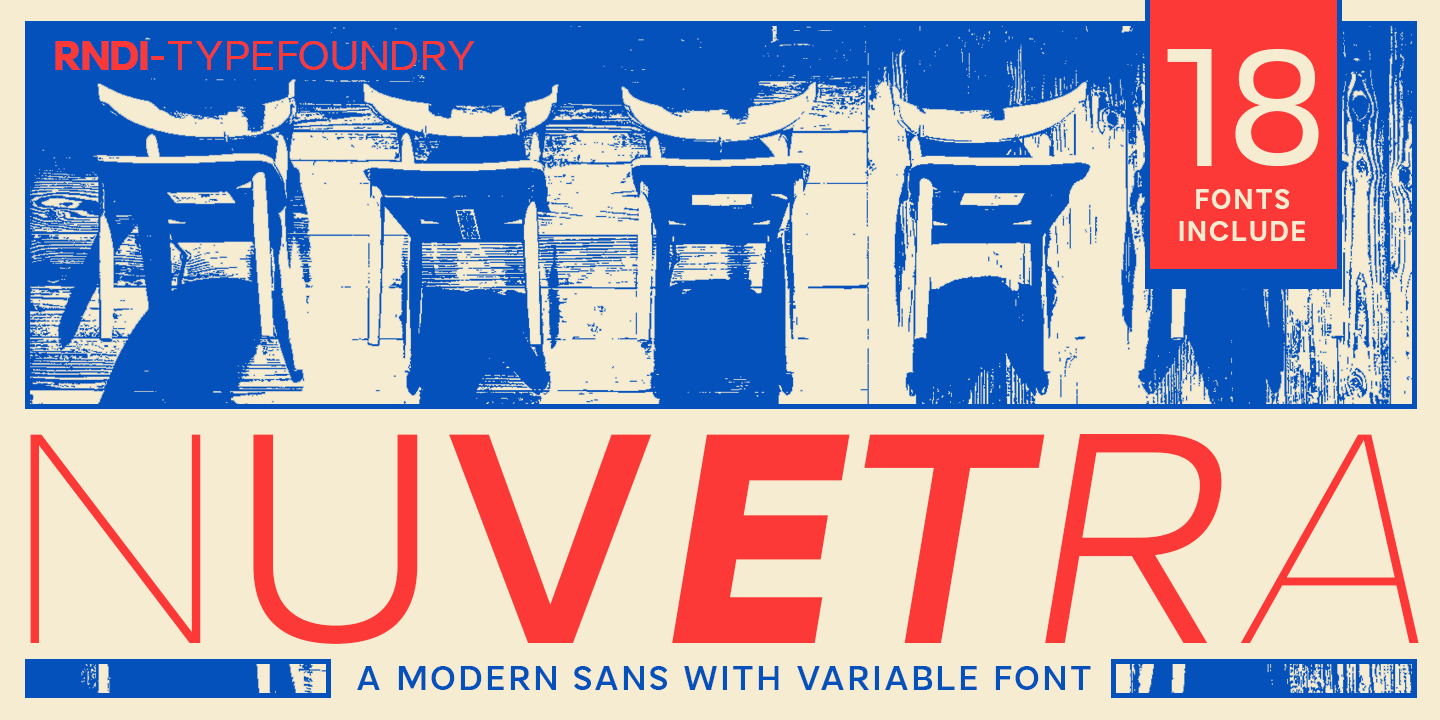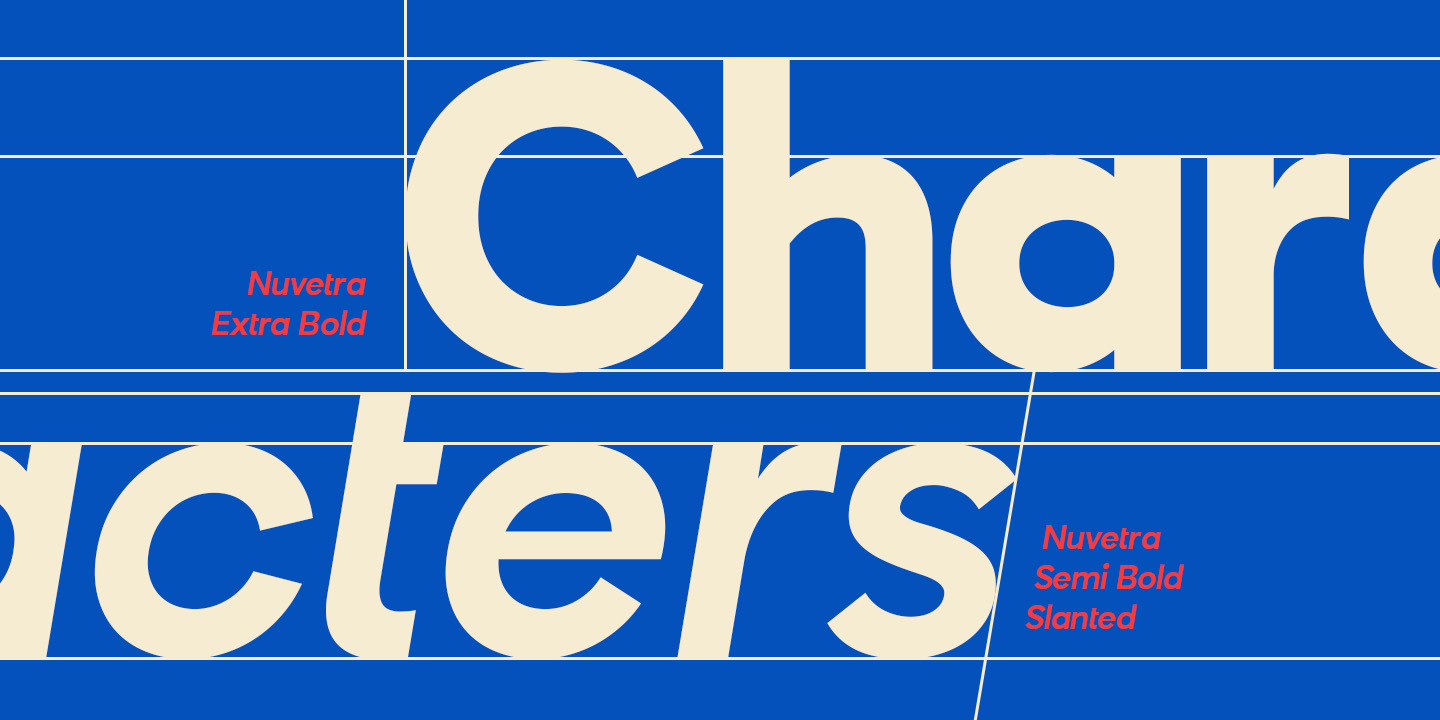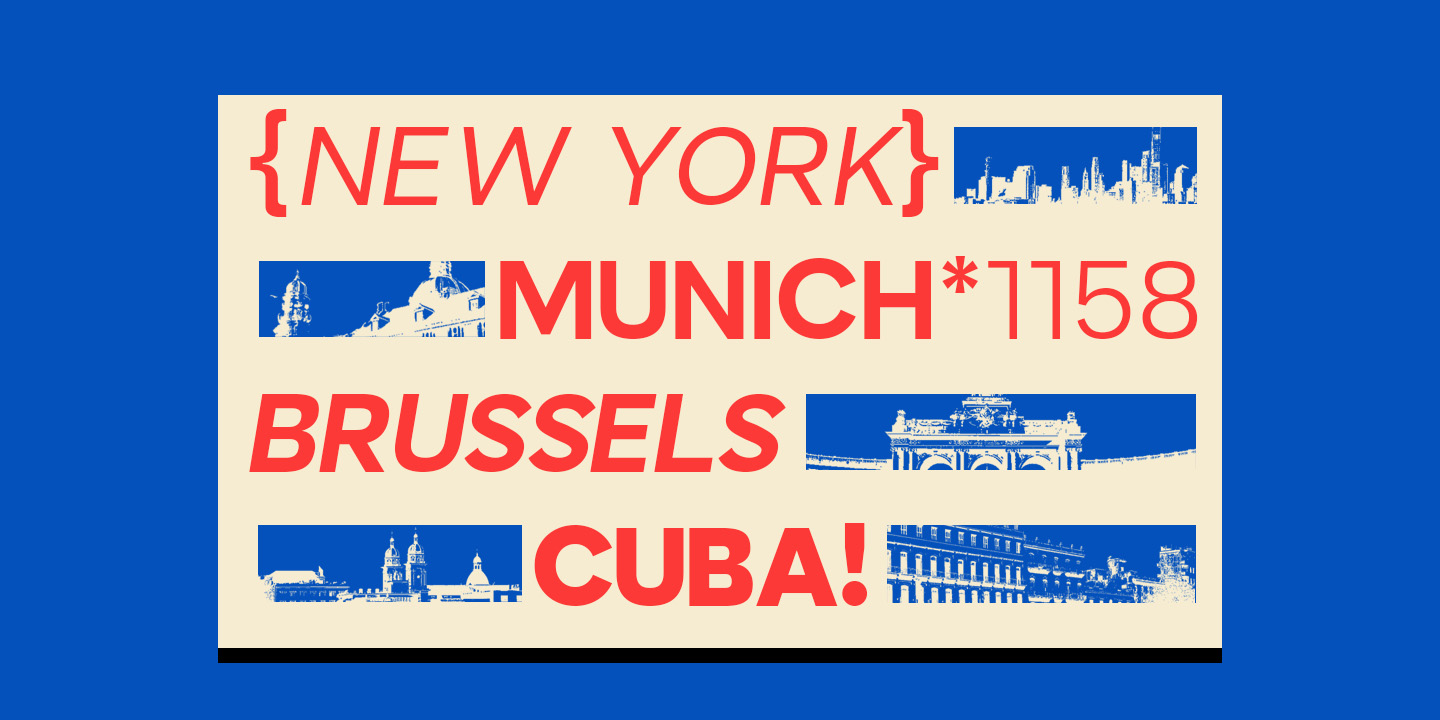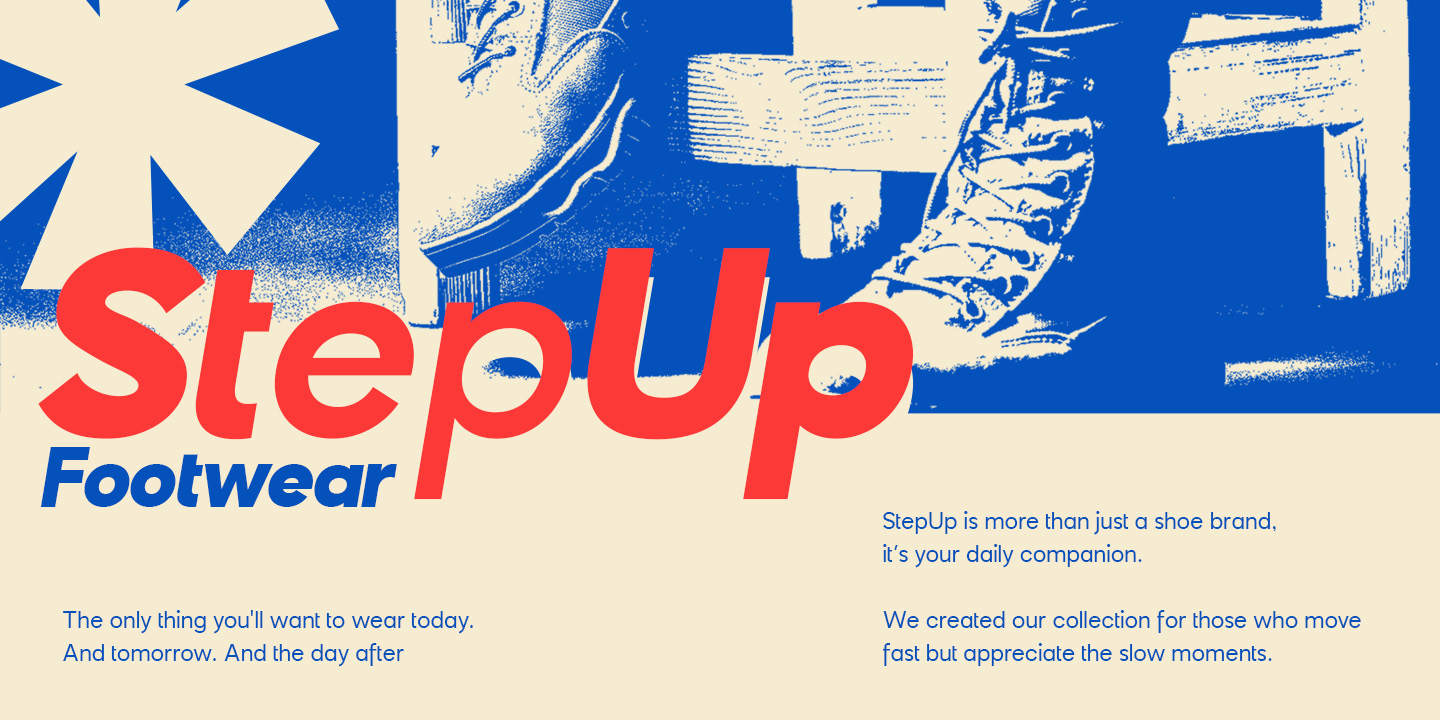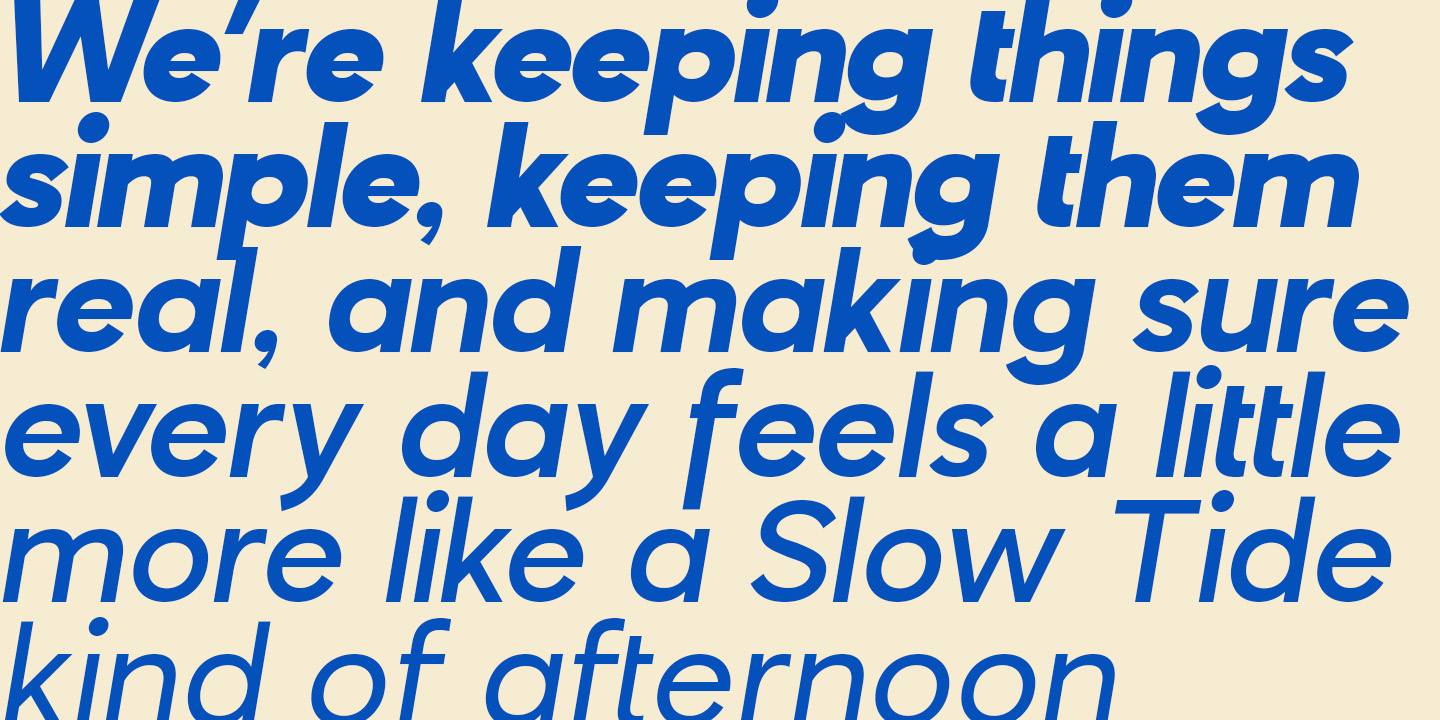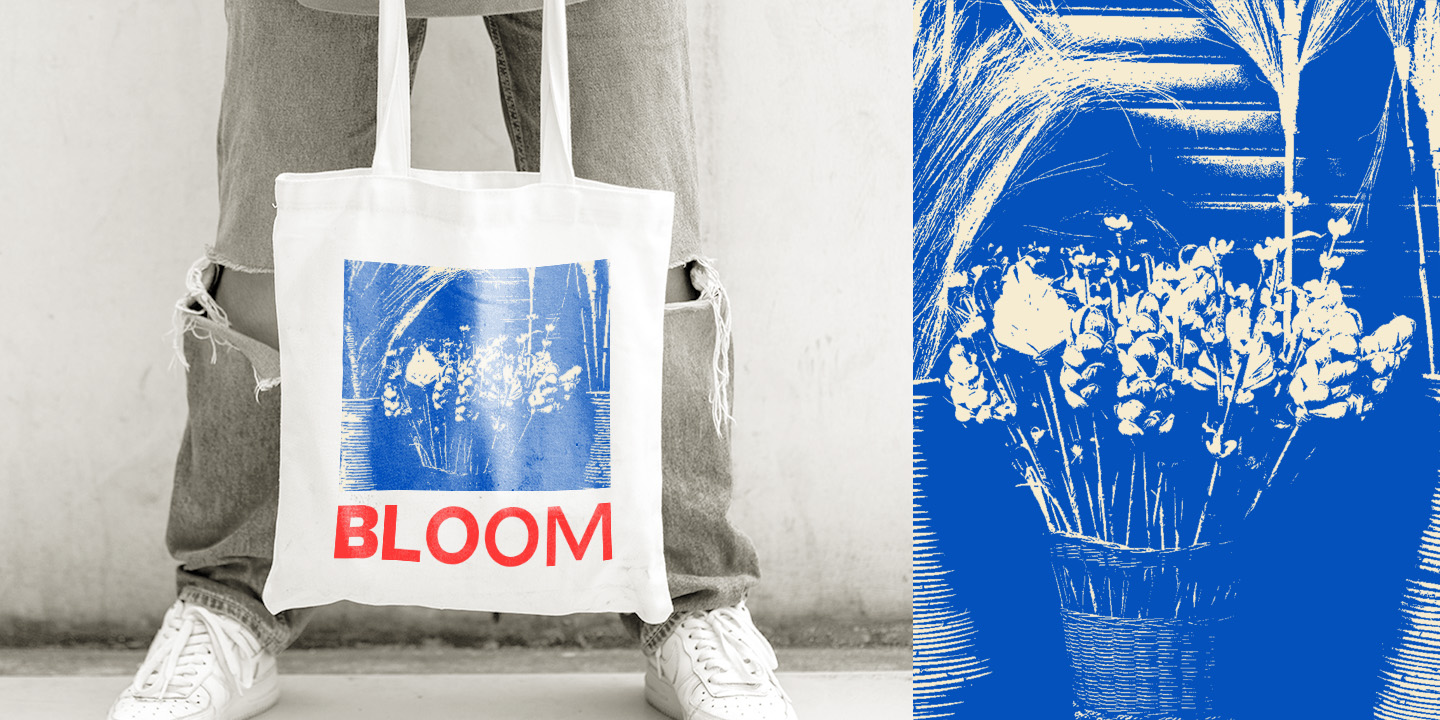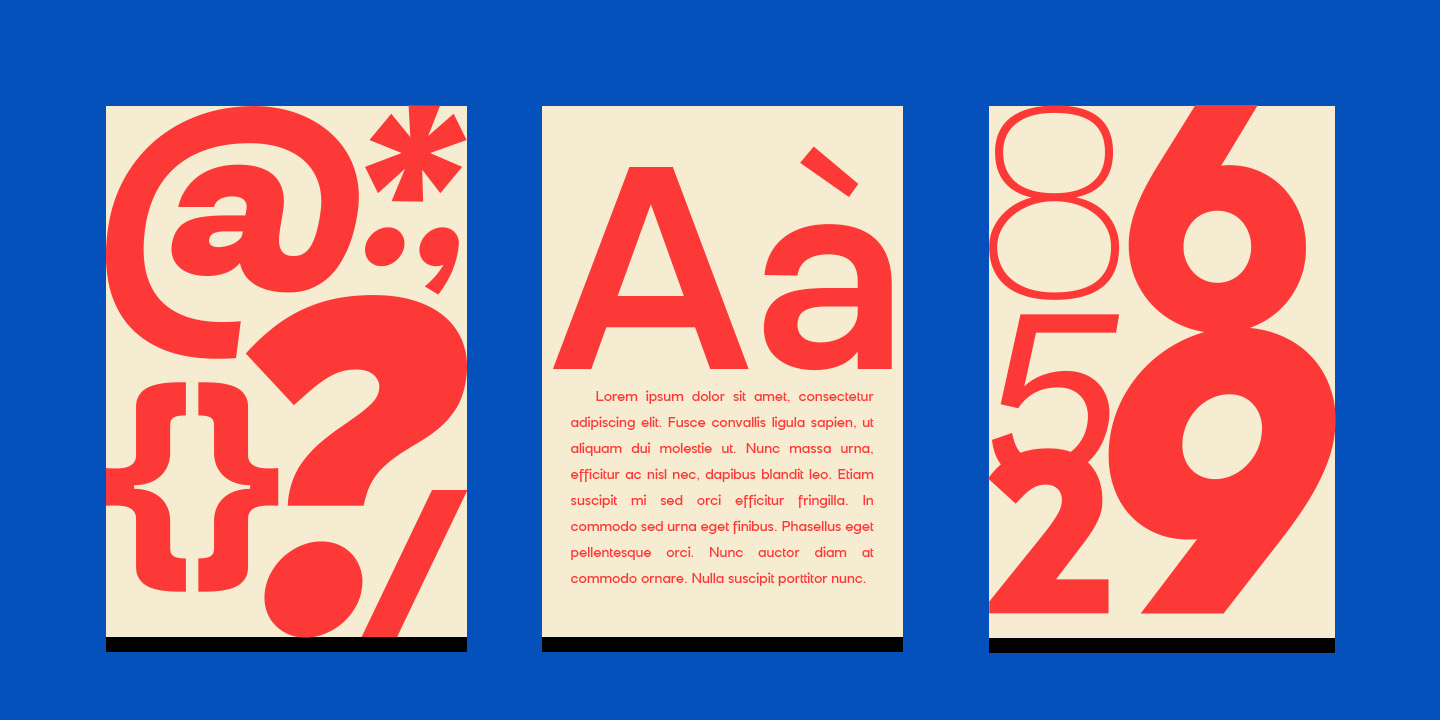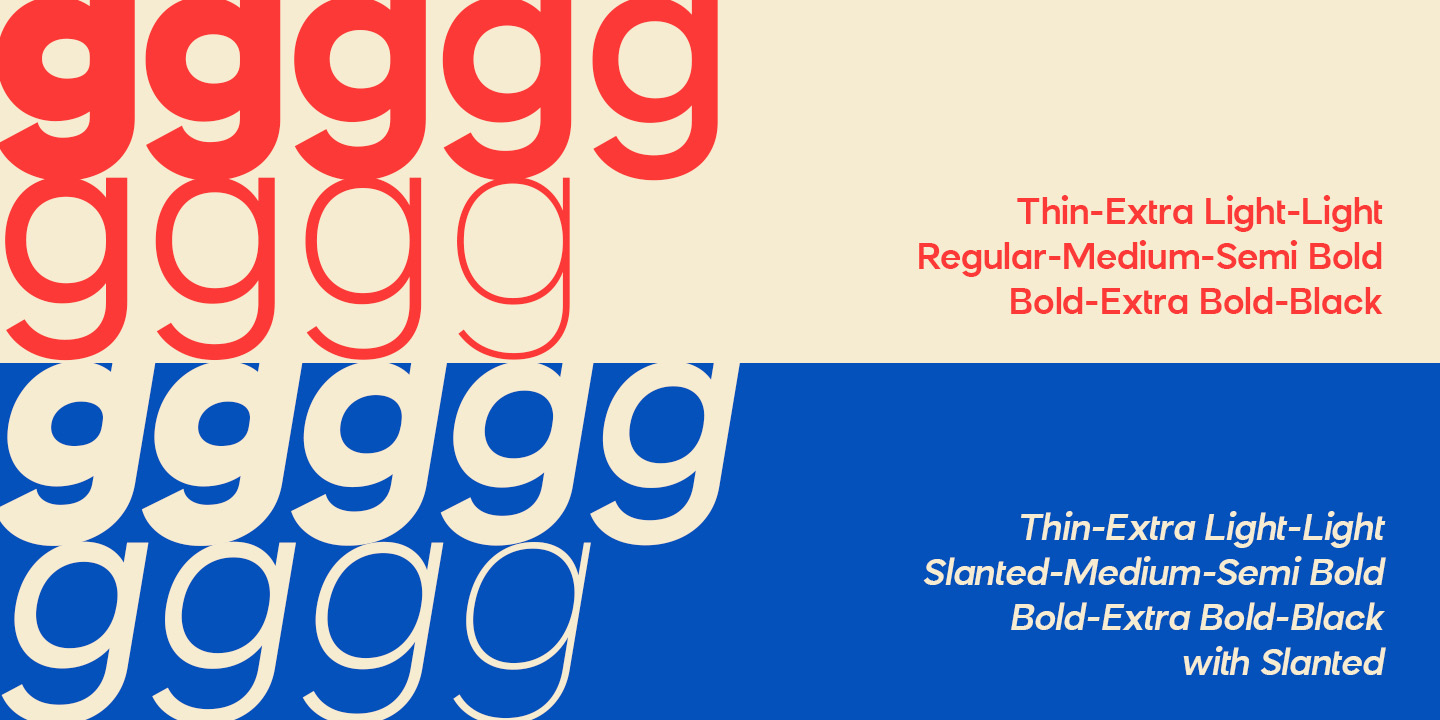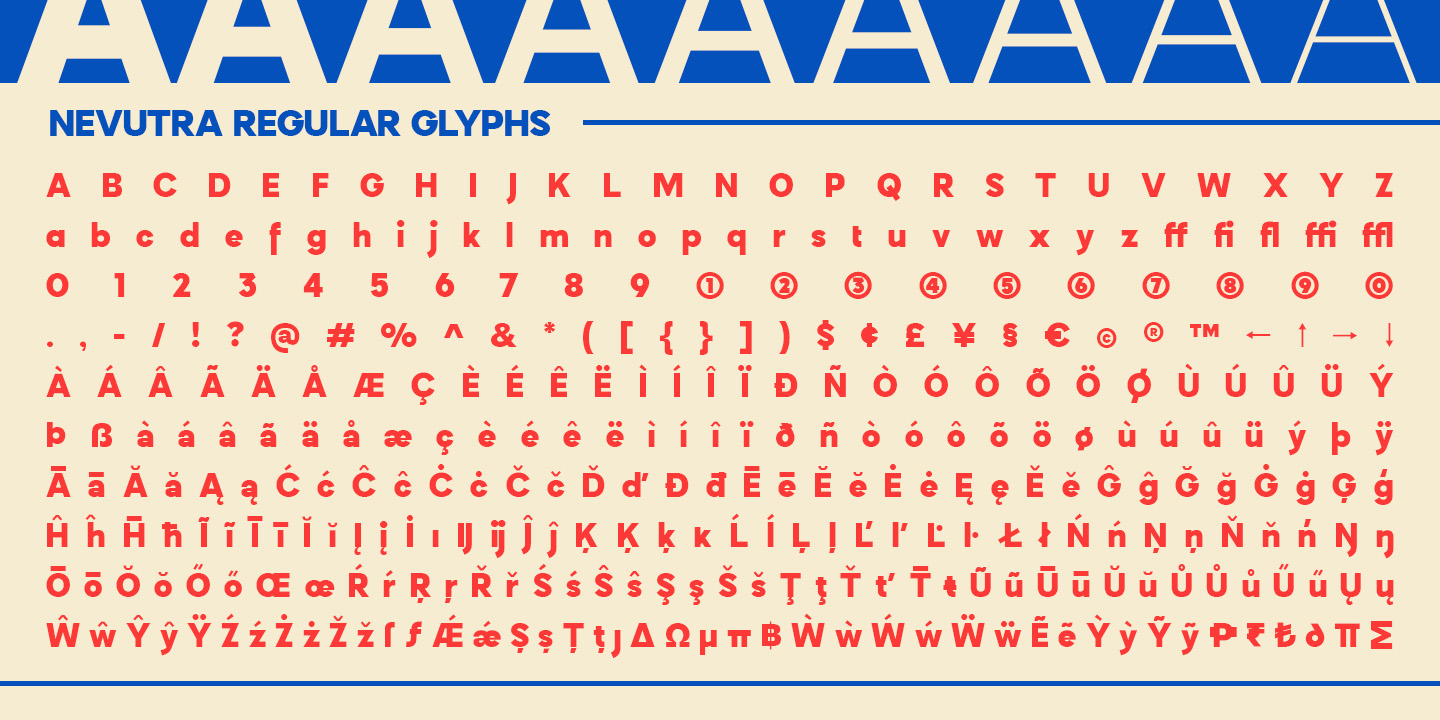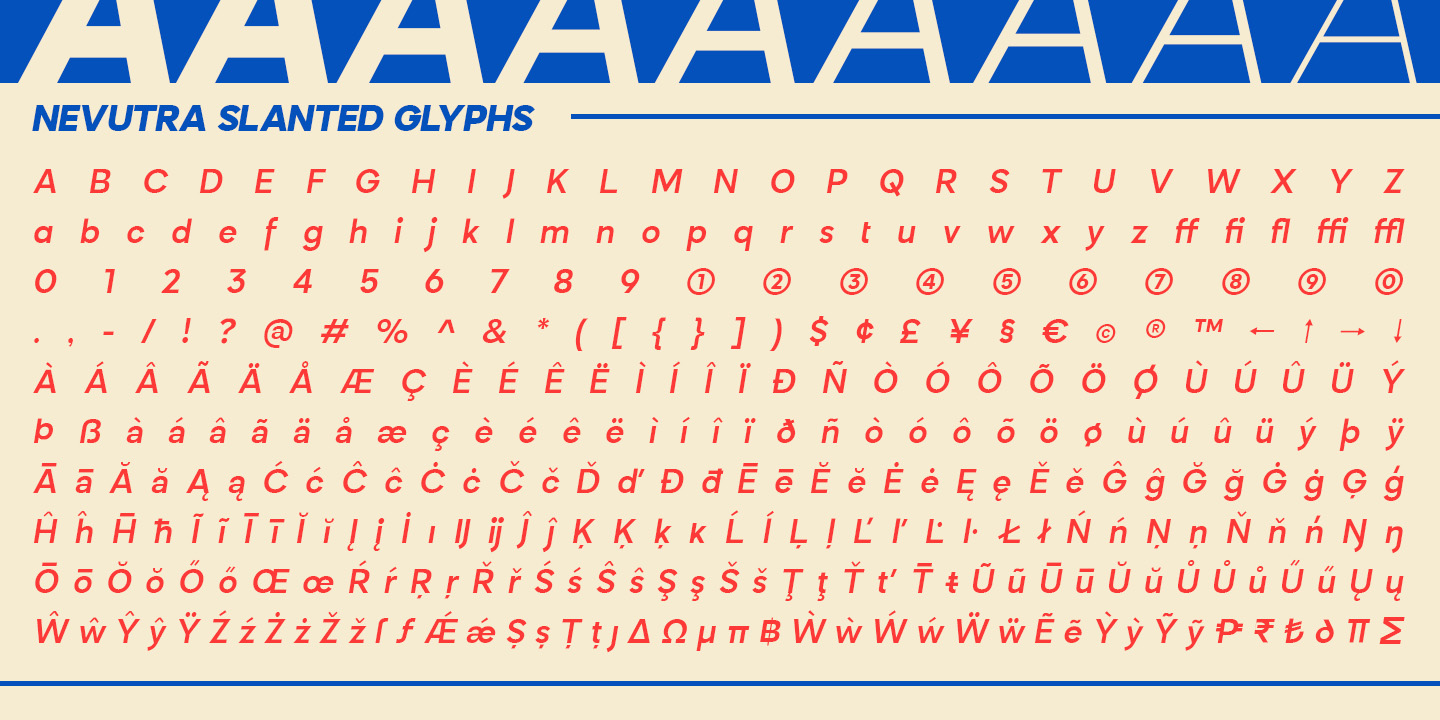
Nuvetra is a modern geometric sans-serif released by RNDI Typefoundry, packaged as a variable font with 18 static styles. The family spans 9 upright weights (Thin through Black) plus a full matching set of oblique/slanted variants, giving designers broad expressive range within a single cohesive system.
Nuvetra works well across branding, poster design, editorial layouts, packaging, apparel, and digital UI — as demonstrated in the promotional materials showing it applied to everything from tote bags to footwear ads to large-scale typographic posters.